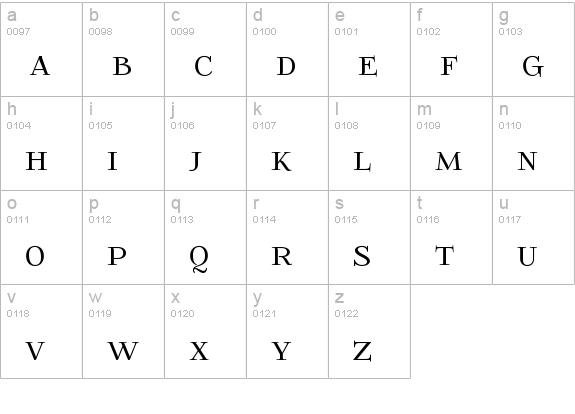
Foglihten Petitecaps is a free for personal use font in the Modern > Geometric category. It has been downloaded 54 times and is available for Windows, Mac and Linux.
Foglihten Petitecaps font is a stunning and elegant typeface that exudes sophistication and class. With its delicate and refined design, this font is perfect for adding a touch of elegance to any project. What sets Foglihten Petitecaps font apart is not just its beauty, but also the fact that it is available for free. That's right, you can now enhance your designs with this exquisite font without spending a dime. Whether you're working on invitations, logos, headlines, or any other creative endeavor, Foglihten Petitecaps font will effortlessly elevate your design to new heights. Its petite caps style adds a sense of refinement and grace, making it ideal for projects that require a touch of sophistication. Downloading Foglihten Petitecaps font is incredibly easy. Simply head over to FontsMarket.com, where this font is freely available for download. So why wait? Enhance your designs with the timeless elegance of Foglihten Petitecaps font today. Download it for free at FontsMarket.com and let your creativity soar.